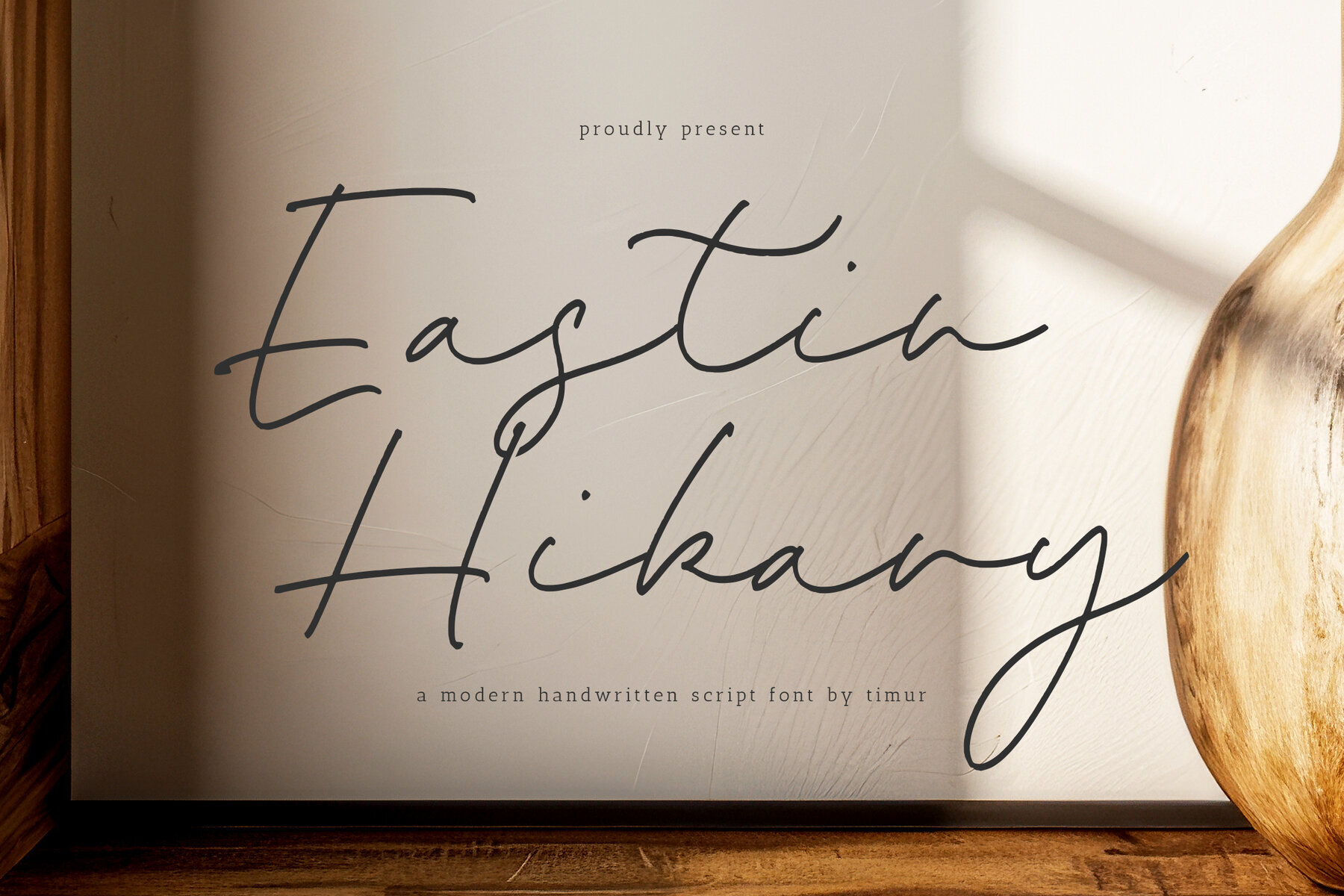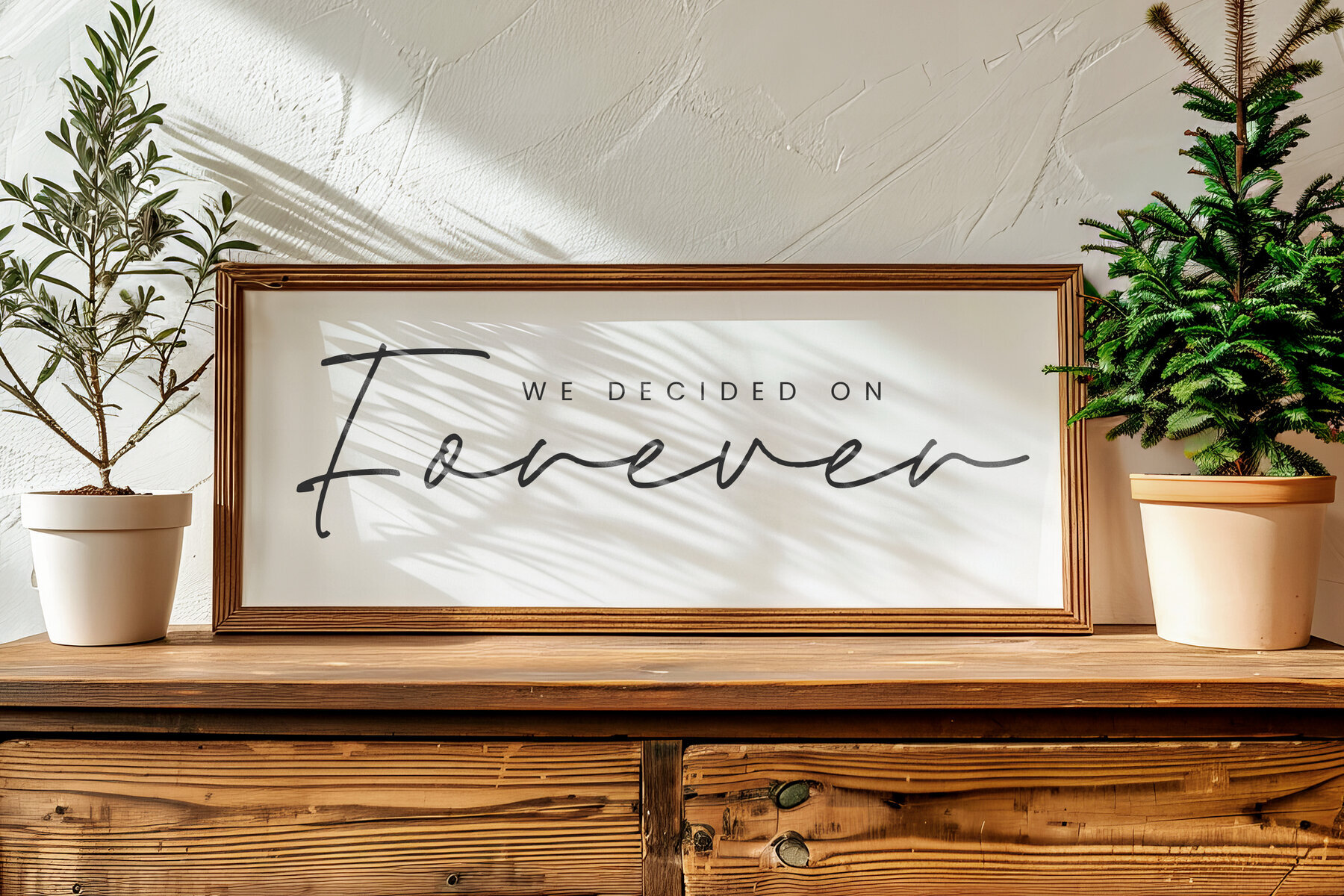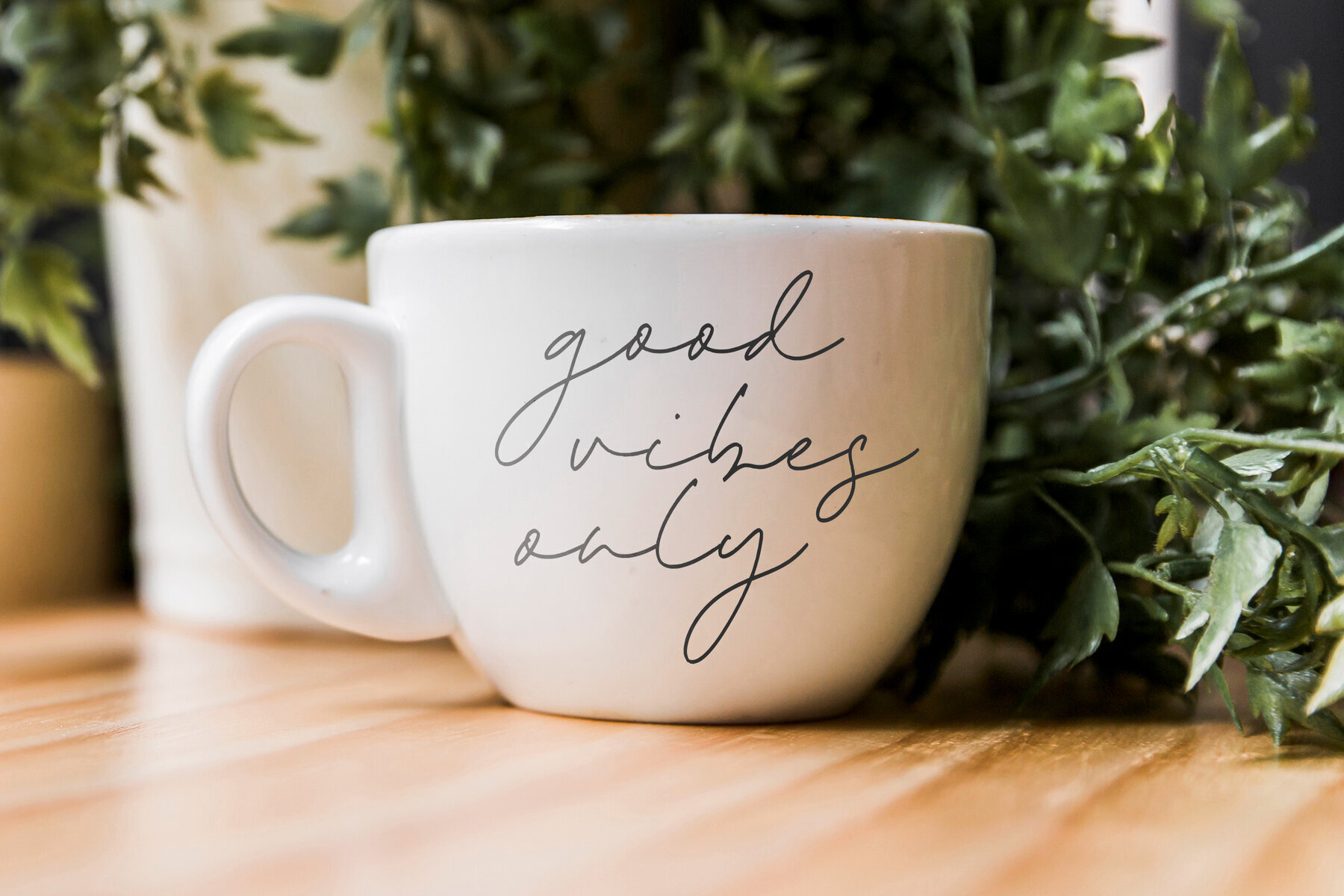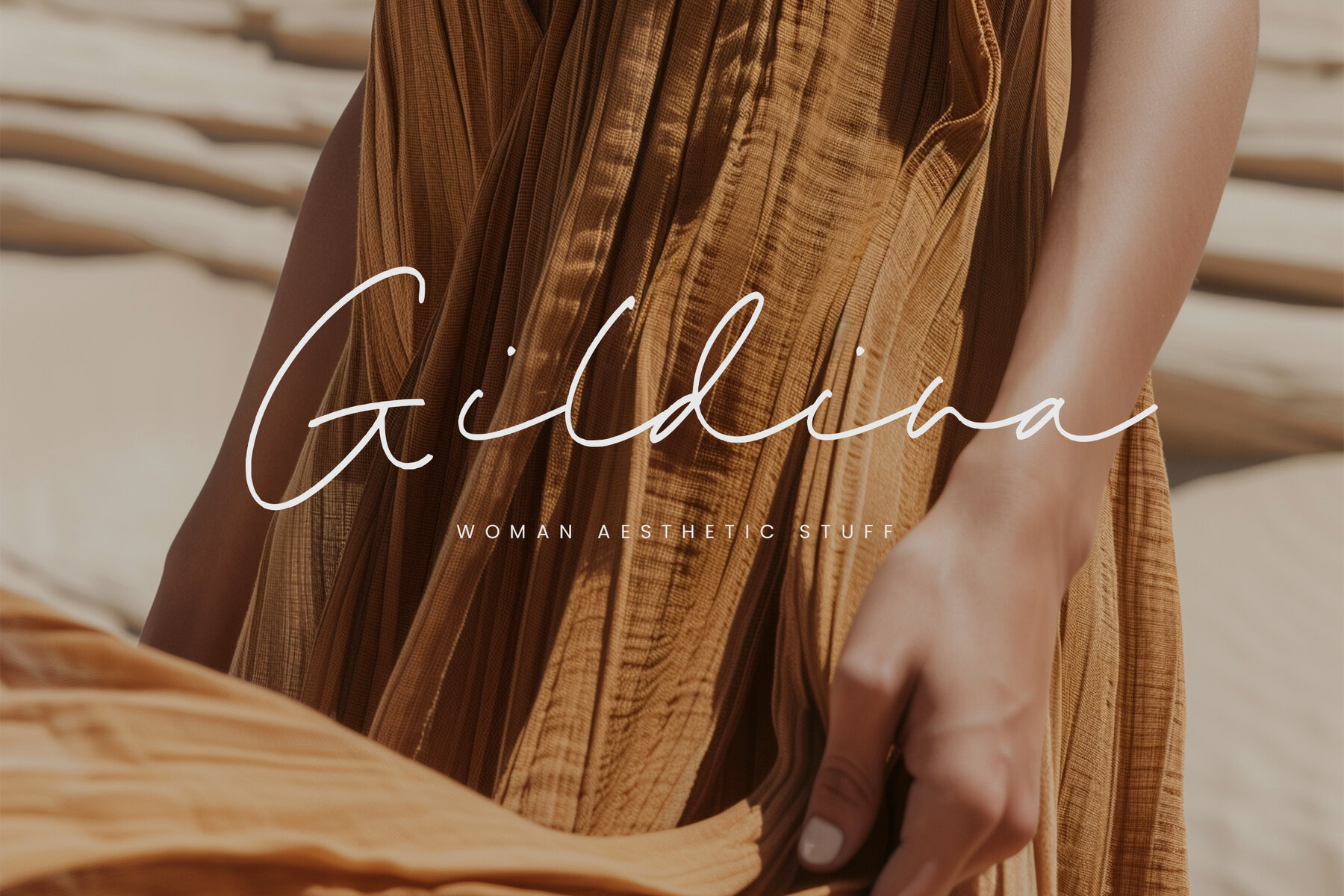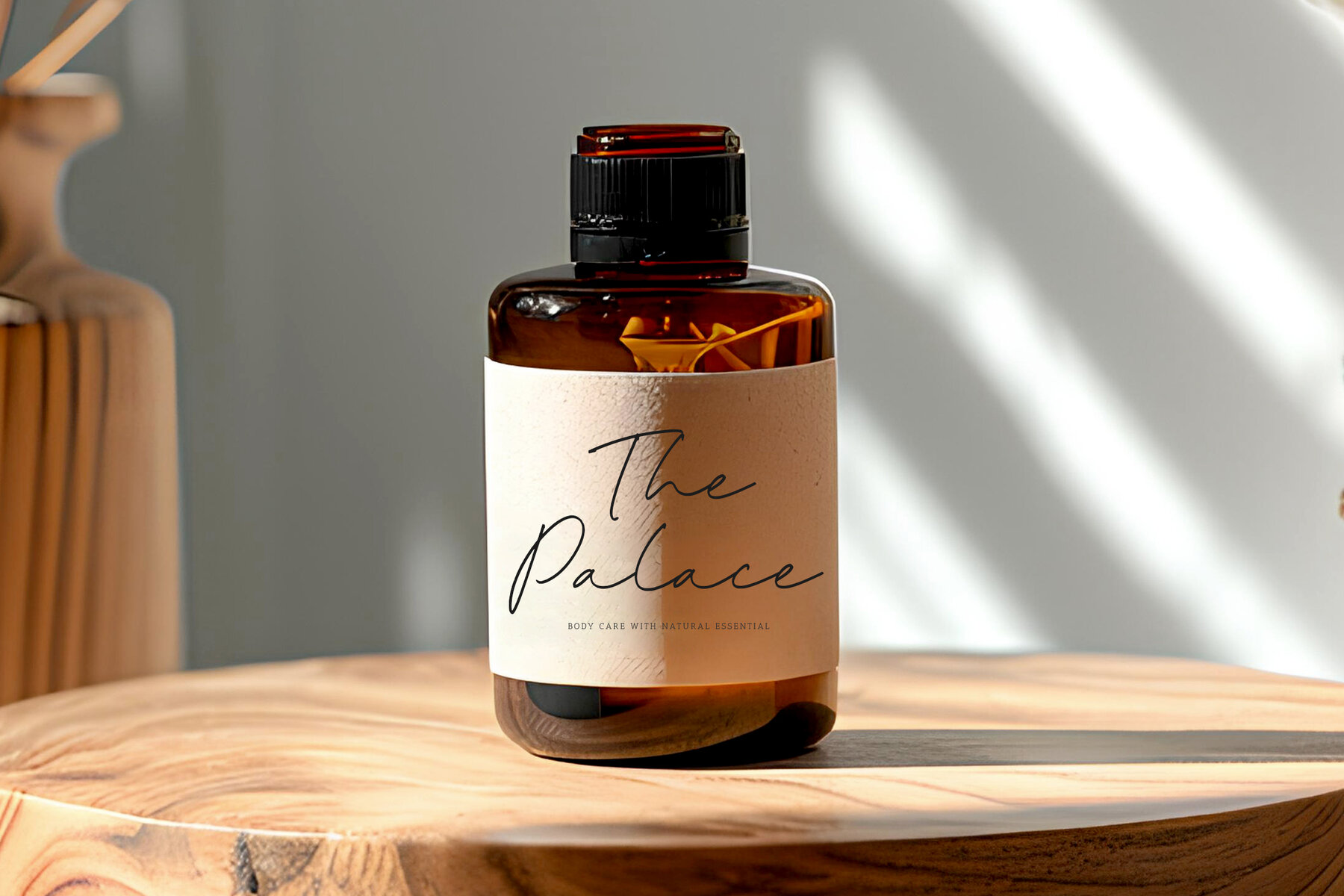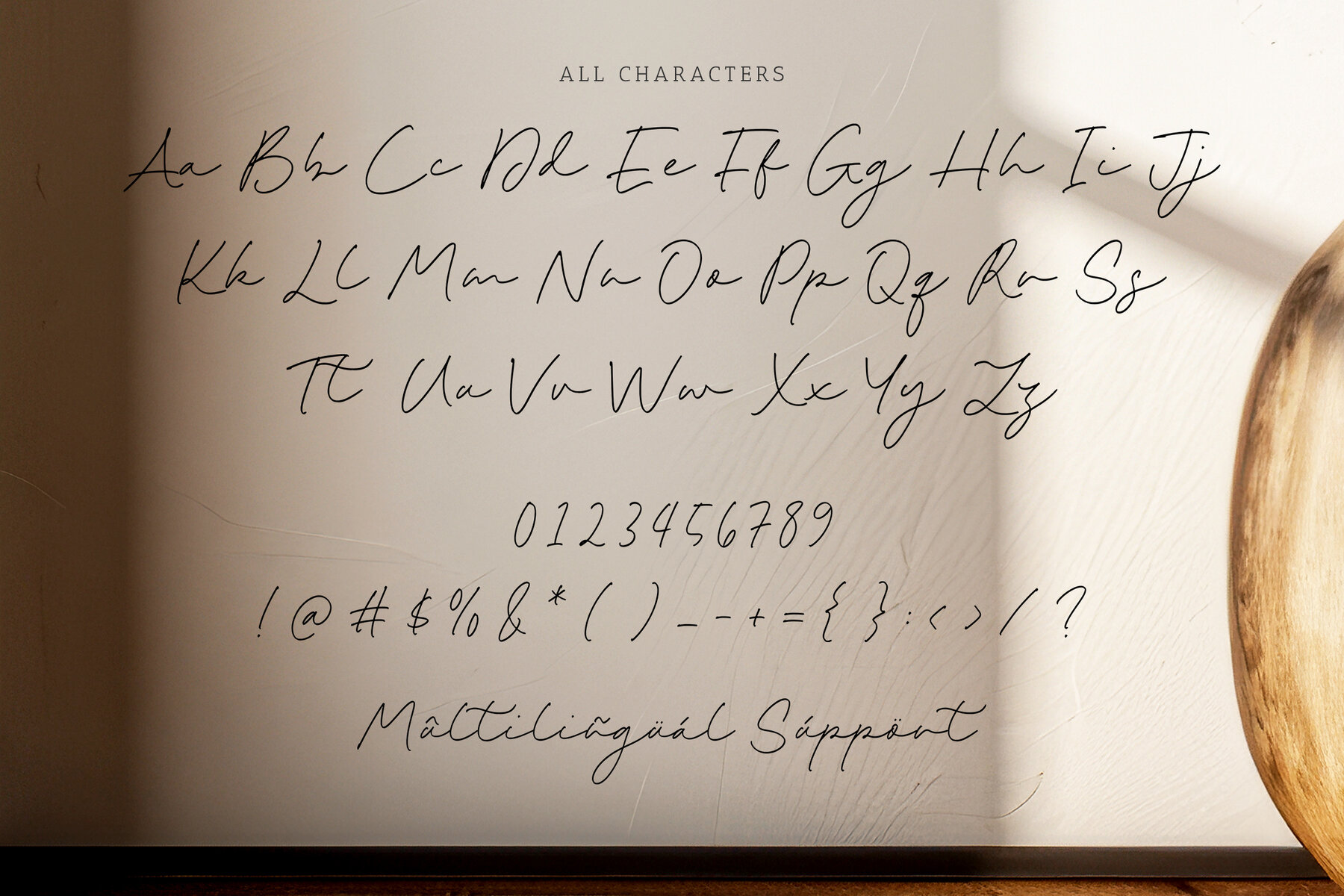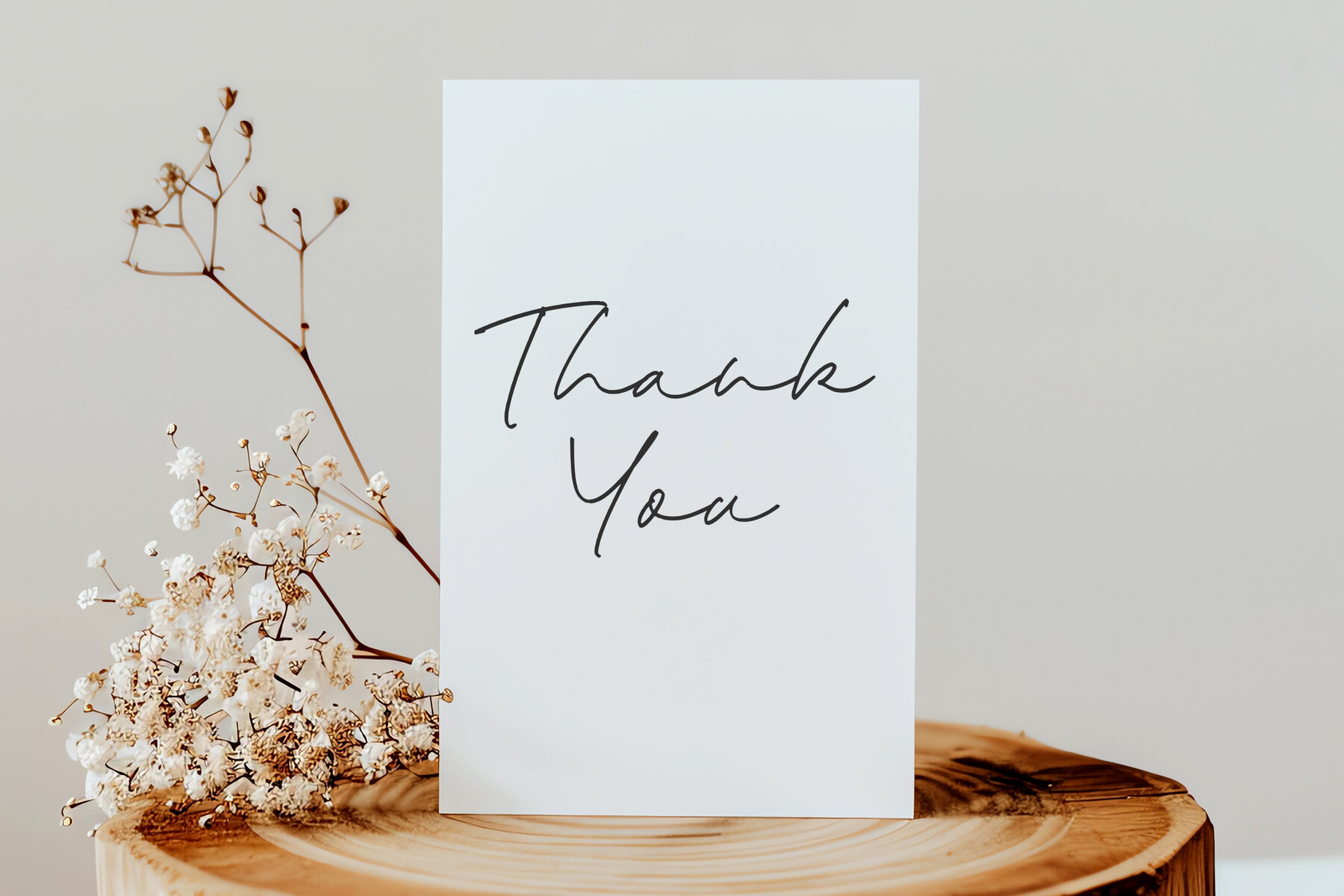
Eastin Hikary Font
Eastin Hikary
Introducing a modern handwritten script font with a sleek monoline design that embodies contemporary elegance. Its clean, flowing lines offer a perfect blend of sophistication and a personal touch, suitable for both professional and creative projects. The balanced strokes and graceful curves provide a refined aesthetic, making your text stand out with an approachable sophistication.
Perfect for a wide range of applications, the font seamlessly integrates into various design projects, from branding and logo creation to wedding invitations and social media graphics. Its stylish simplicity and versatility allow for a seamless adaptation to different design contexts, ensuring that your projects resonate with a subtle yet effective charm. Enhance your designs with a thoughtful touch that reflects both style and creativity.